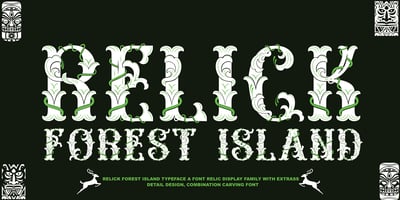
Relic Forest Island 3
Relic Forest Island 3 font
Relic Forest Island 3 Font Family was designed by Ibram Syah and published by Jehansyah. Relic Forest Island 3 contains 17 styles and family package options. Relic forest island III, This is the newest font from the previous generation, Relic island I and Relic Island II, this design comes with a more detailed touch with very charming carvings, comes with several families that you can make your best design choice for later this year and in the future, with several monograms and families that you can choose according to your design, this design will add inspiration to your project, and see, how it will work for you, and make this font your best choicethank you very much